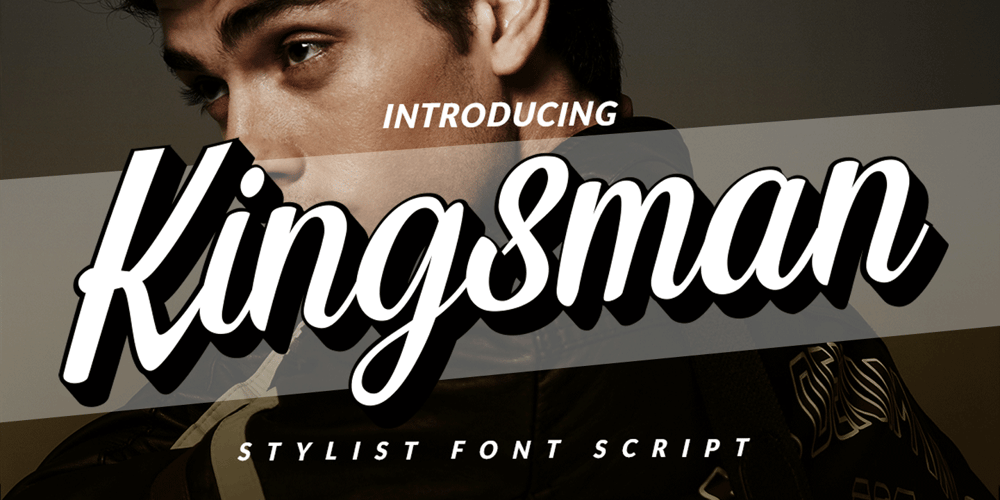
Kingsman Dual Style! Font Family was designed by Putra Khan and published by Mindtype Co.. Kingsman Dual Style! contains 4 styles and family package options. Proudly presenting our latest product: Kingsman! Kingsman is a simple font, comes with alternate characters and some ligatures. This font looks elegant, readable, stylish, and catchy. The fonts are great for products, logos, wedding cards, clothing brand logos, vintage designs and much more.